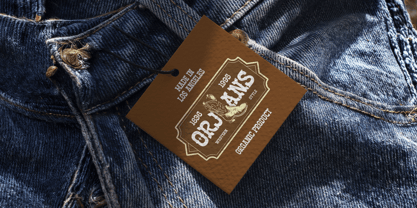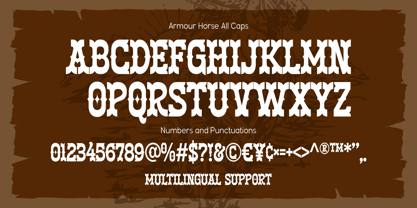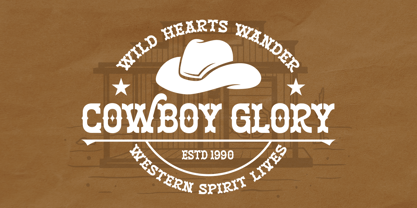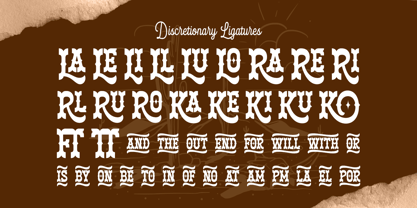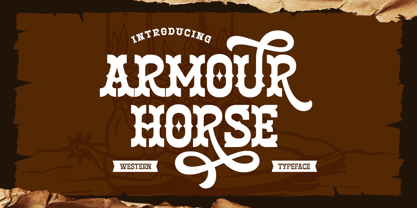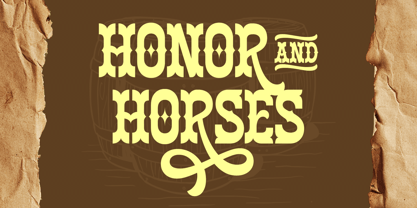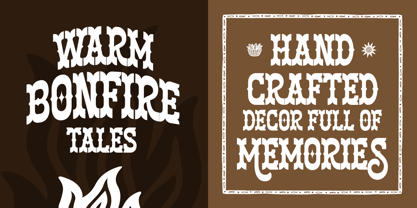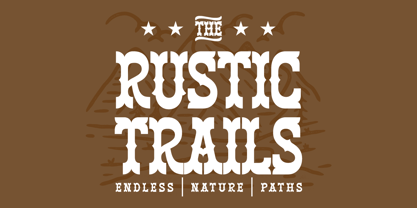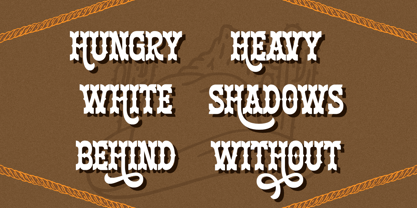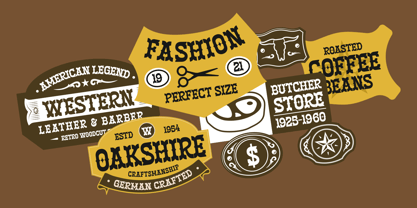
Armour Horse
by Arterfak Project
The Armour Horse Font Family was designed by Ahmad Ramzi Fahruddin and published by Arterfak Project. Armour Horse contains 1 styles. More about this family
Armour Horse is a bold western display typeface inspired by cowboy culture, rodeo traditions, frontier towns, and vintage wood-type lettering. Built with strong serif foundations, decorative spurs, and distinctive reverse-contrast details, this font delivers an authentic Wild West character while maintaining excellent readability. Its rugged yet elegant appearance makes it perfect for creating eye-catching headlines, vintage logos, labels, ranch branding, packaging, posters, apparel, signage, and other western-themed designs.
Designed to give you maximum creative flexibility, Armour Horse comes packed with stylistic alternates, discretionary ligatures, decorative catchwords, multilingual support, numbers, and punctuation. Whether you're crafting a rustic brand identity, an old-town saloon poster, or a premium handcrafted product label, Armour Horse helps you create typography that feels timeless, adventurous, and full of frontier spirit. Bring the charm of the Wild West to your next project with a typeface that's bold, memorable, and unmistakably western
Designers: Ahmad Ramzi Fahruddin
Foundry: Arterfak Project